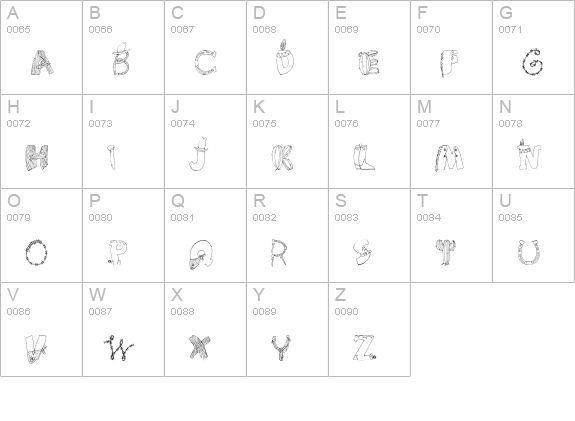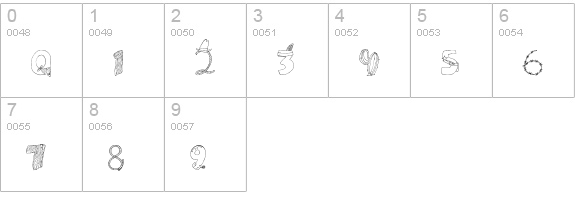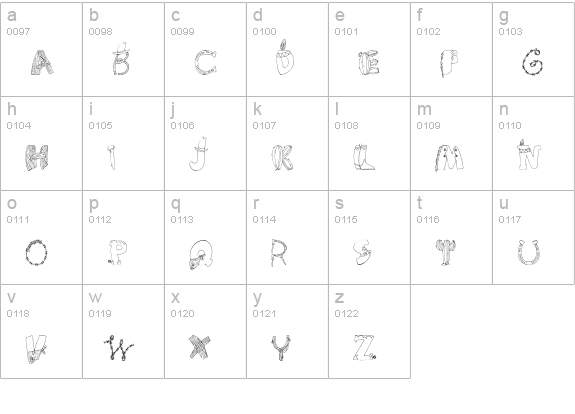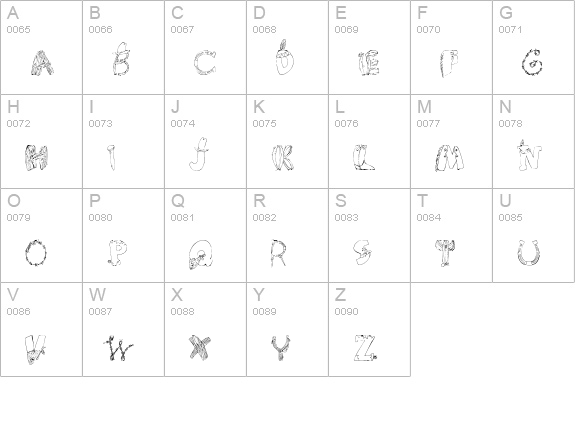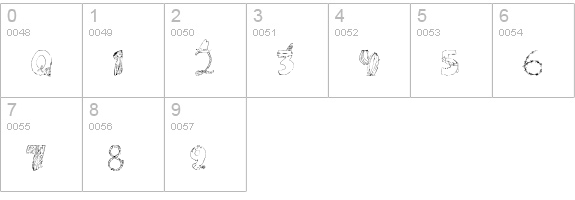
CK Cowboys & Indians Font Details
CK Cowboys & Indians font is a stunning display typeface inspired by the rugged and adventurous spirit of the American West. With its bold and rustic appearance, this font captures the essence of cowboys, Indians, and the wild frontier. Each letter is intricately designed to evoke a sense of nostalgia and authenticity. This font is perfect for creating eye-catching headlines, posters, and branding materials that demand attention and convey a sense of adventure. Whether you're working on a western-themed project or simply want to add a touch of the Wild West to your designs, CK Cowboys & Indians font is the perfect choice. Best of all, this font is available for free download at FontsMarket.com. So don't miss out on the opportunity to add this unique and captivating typeface to your font collection today!